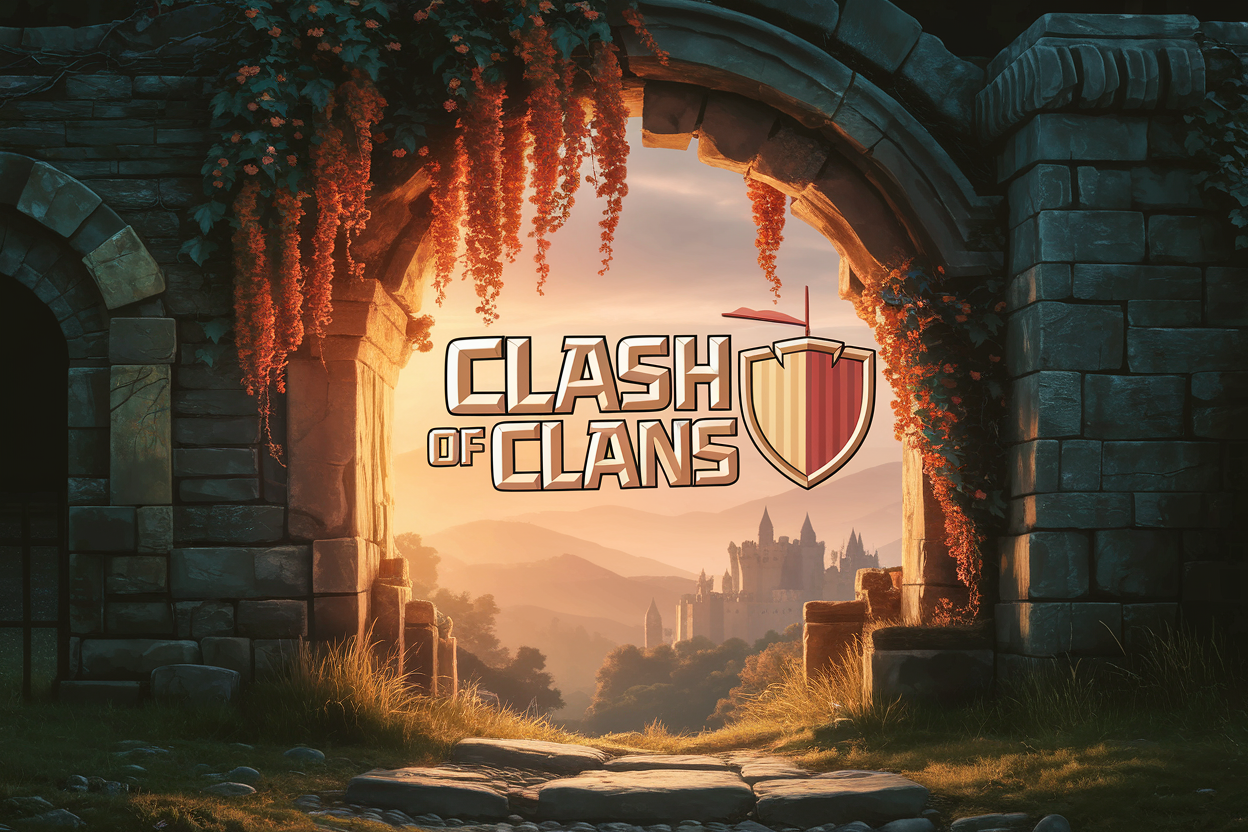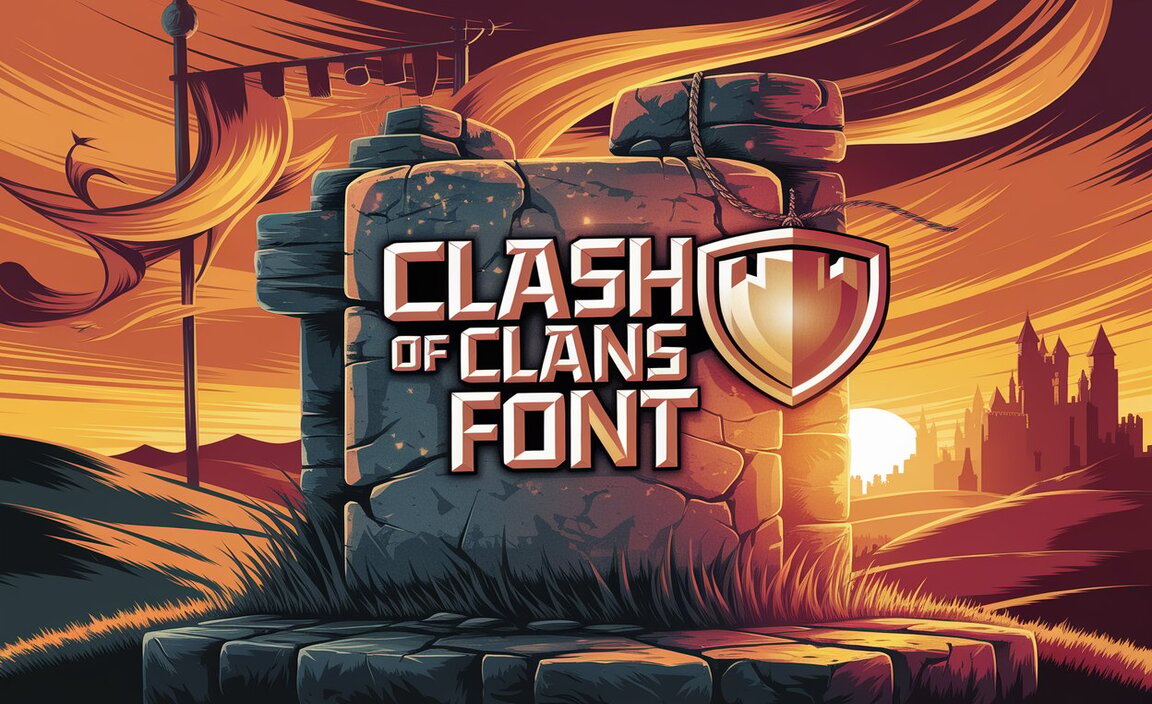
The Clash of Clans Font, inspired by the popular mobile game developed by Supercell, captures the bold and medieval aesthetic of the game. This typeface is perfect for creating game-themed logos, social media posts, and posters. Its robust, blocky style mirrors the essence of epic battles and virtual clan-building, making it a top choice for gaming enthusiasts and designers alike.
Font Family Overview
The Clash of Clans font family features a single, bold typeface:
- Clash of Clans Font
This font embodies the game’s energy and is known for its clean, blocky design. It is fan-favorite among gamers and designers alike, commonly referred to as You Blockhead, and is widely recognized for its unique character.
Best Uses For Clash Of Clans Font
- Game Branding: Ideal for creating logos or designs inspired by the Clash of Clans universe. You can use it to make custom clan logos or promote in-game events.
- Social Media Content: Perfect for enhancing Instagram posts, stories, and gaming profiles. Use the bold style to grab attention and make your content stand out.
- Posters & Banners: Bold typography that stands out in advertisements or event materials. It is perfect for creating posters that capture the attention of fellow gamers.
- Clans Logos: This distinctive font gives your virtual clan a unique identity. It’s great for showcasing your clan’s emblem or motto.
- Gaming Articles: Use it in articles, gaming guides, or content related to Clash of Clans. It can add an extra flair to the overall look of your gaming blog or website.
Where To Use Clash Of Clans Font
- Gaming Content: Customize clan logos, gaming websites, and digital media to give it the iconic Clash of Clans look.
- Printed Materials: Make posters, banners, and magazines stand out with bold typography. It’s perfect for game-related printed advertising materials.
- Digital Media: This dynamic font enhances social media graphics, game-related visuals, and text generators. It’s ideal for everything from Facebook banners to Twitter headers.
Similar Fonts To Clash Of Clans
If you like the Clash of Clans font, you may also like these similar fonts:
- Clash Royale Font: A sibling font from another Supercell game, sharing a similar medieval vibe. Great for other Supercell game-themed designs.
- Supercell Magic: A free alternative that mimics Clash of Clans’ bold style. It is widely used for fan-based content and game promotions.
- Evil Genius Font: A fun, dynamic typeface perfect for gaming graphics. It offers a bold look with a playful touch, ideal for fantasy-themed designs.
- Diablo Font: A gothic-inspired font that works well for fantasy designs. It has a similar vibe to Clash of Clans, with a darker edge perfect for RPGs.
- Amstera Balika: A handwriting script font perfect for creative projects. While different in style, it offers an aesthetic contrast when paired with bold gaming fonts.
The Clash of Clans Font perfectly captures the essence of medieval warfare, making it ideal for gaming enthusiasts and designers. Its bold and dynamic style fits various applications, from game branding to social media graphics. Whether for personal projects or professional content, this font will add character and creativity to your designs, making them stand out in the competitive world of game branding and community content creation.
1.What Is The Clash Of Clans Font?
The Clash of Clans font, often called You Blockhead, is a bold and playful typeface associated with the game’s branding. It’s known for its distinct medieval look and clean, blocky design.
4.What Are The Best Uses For The Clash Of Clans Font?
It’s perfect for game-inspired logos, posters, social media posts, and other gaming-related digital content. The bold, distinctive look makes it ideal for visual branding in the gaming community.
5.Are There Any Similar Fonts To Clash Of Clans?
Natives like Clash Royale Font, Supercell Magic, and Evil Genius Font offer similar styles. You can experiment with these fonts to achieve a similar bold, medieval look for your designs.